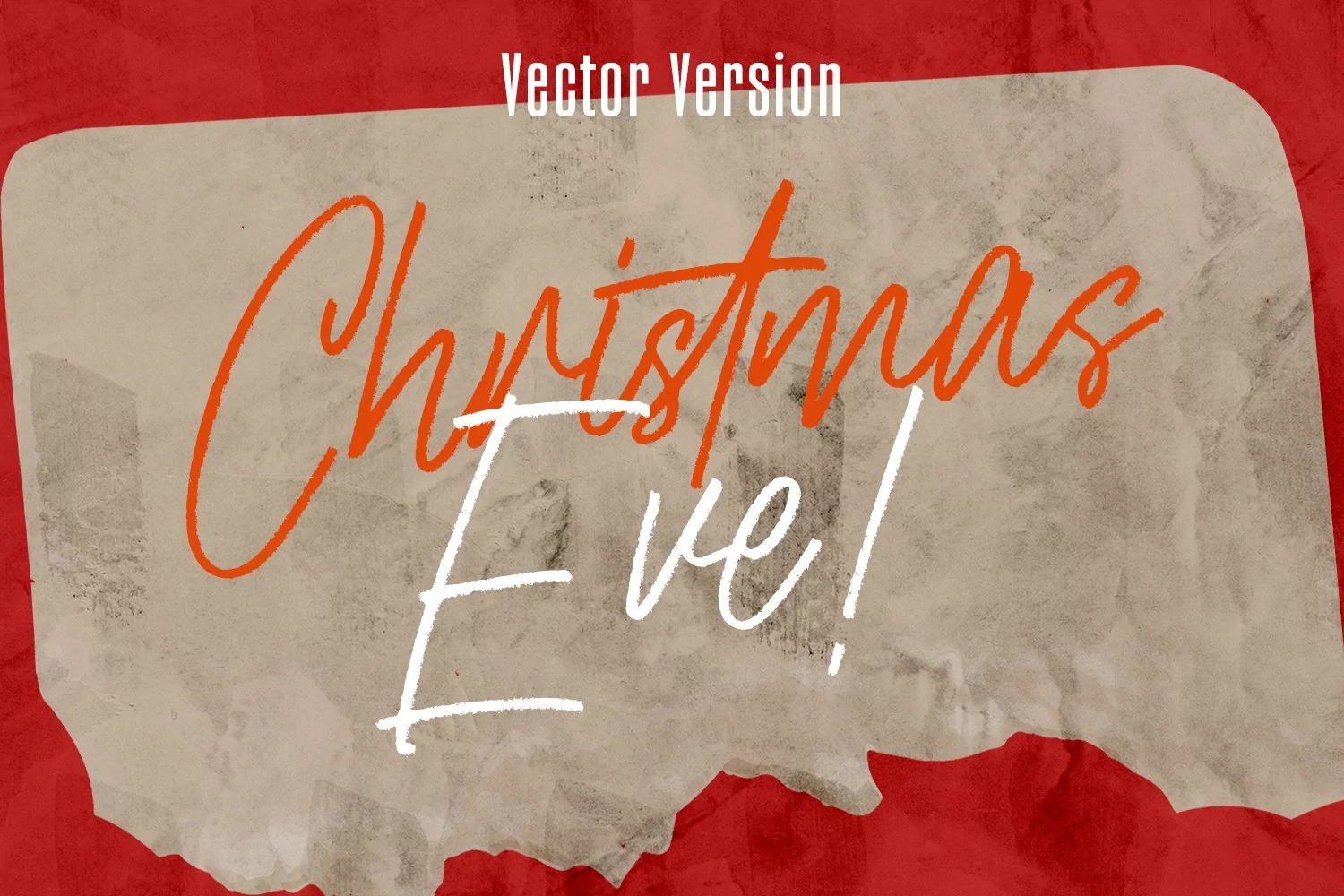
Redtrails is an expressive signature SVG font Duo. With medium brush stroke and combine with Sans serif display font, fun character with a bit of ligatures and has a two files lowercase alternates. To give you an extra creative work. Redtrails font support multilingual more than 100+ language. This font is good for logo design, Social media, Movie Titles, Books Titles, a short text even a long text letter and good for your secondary text font with sans or serif. Make a stunning work with Redtrails font.